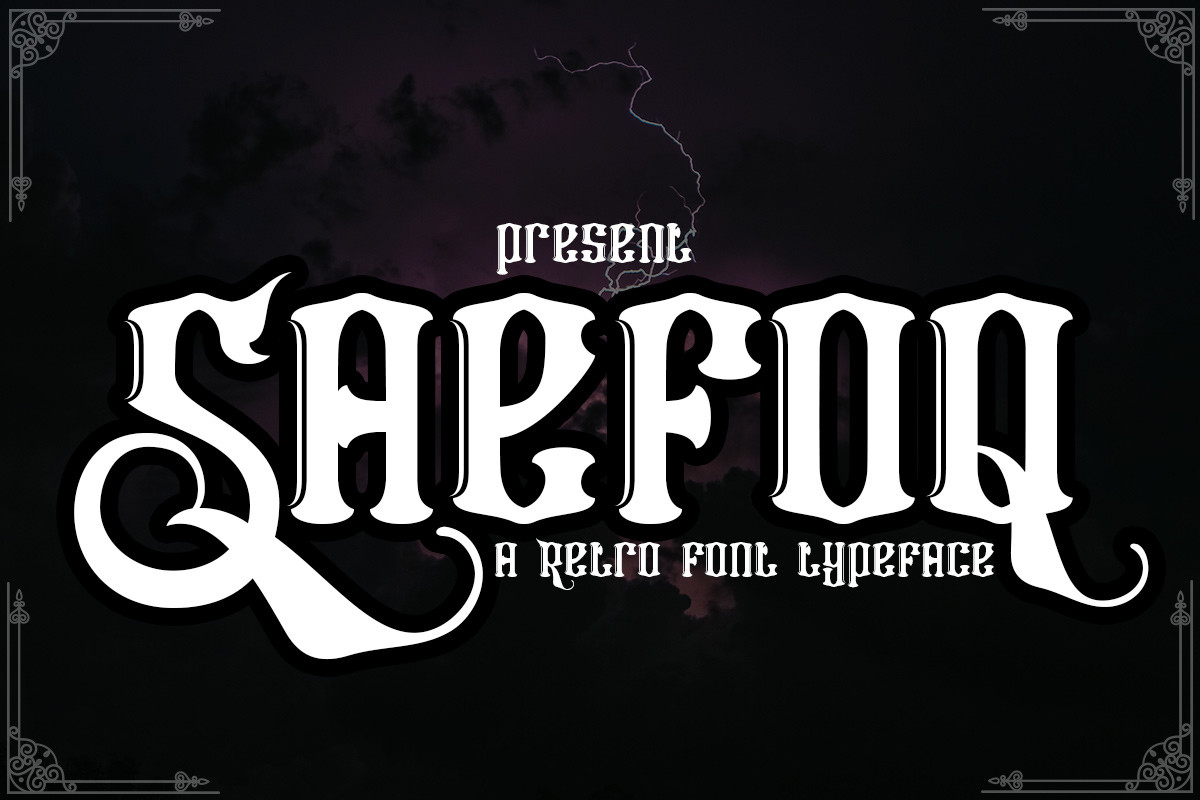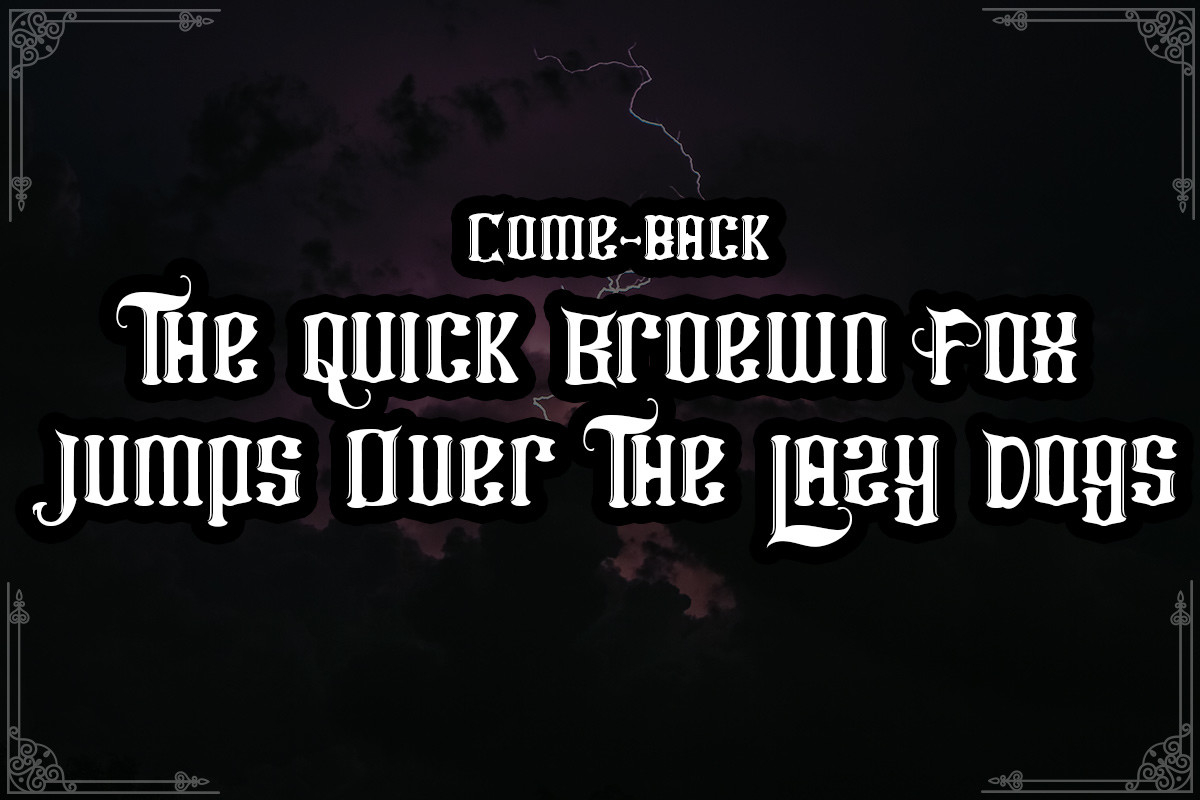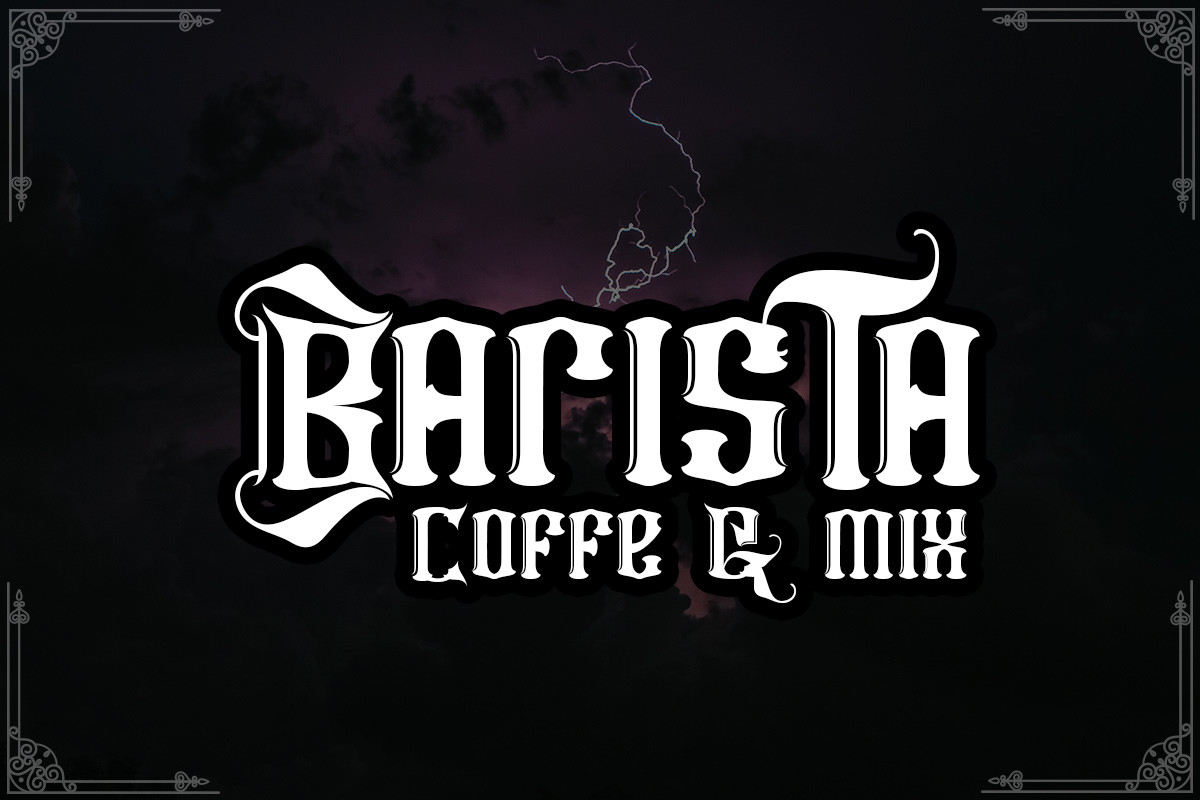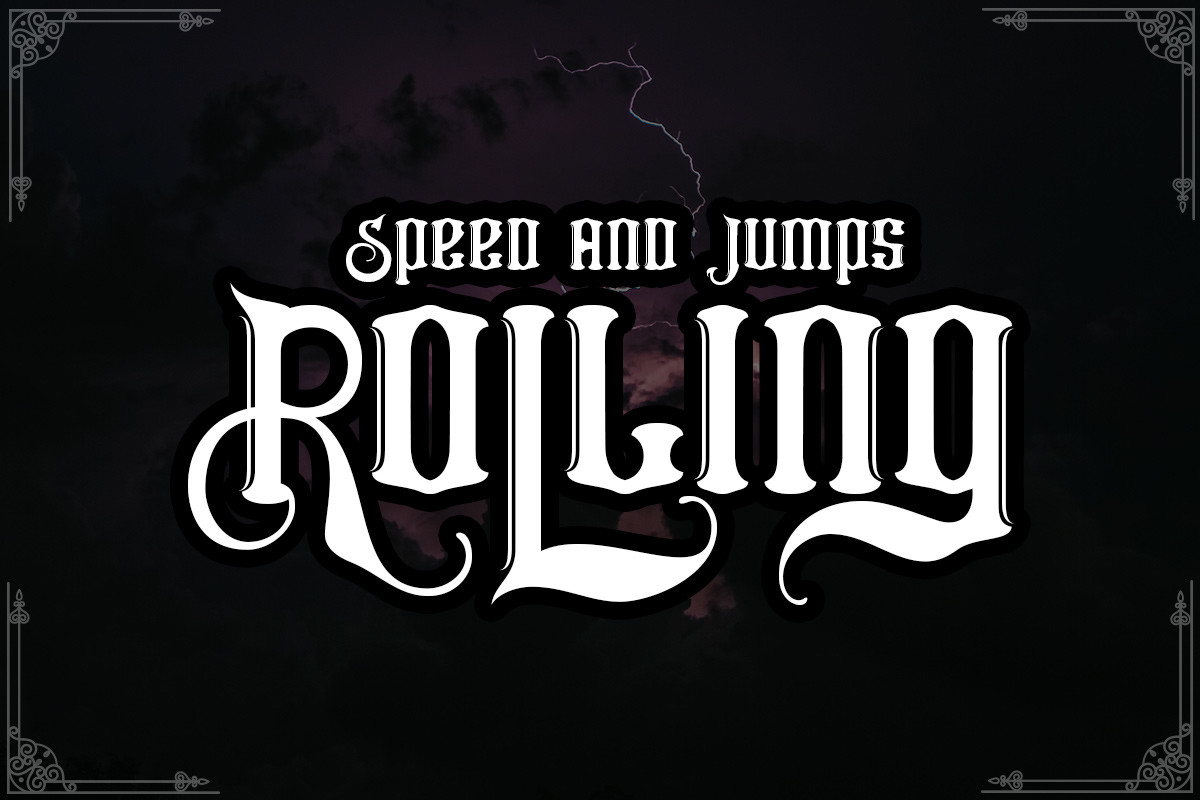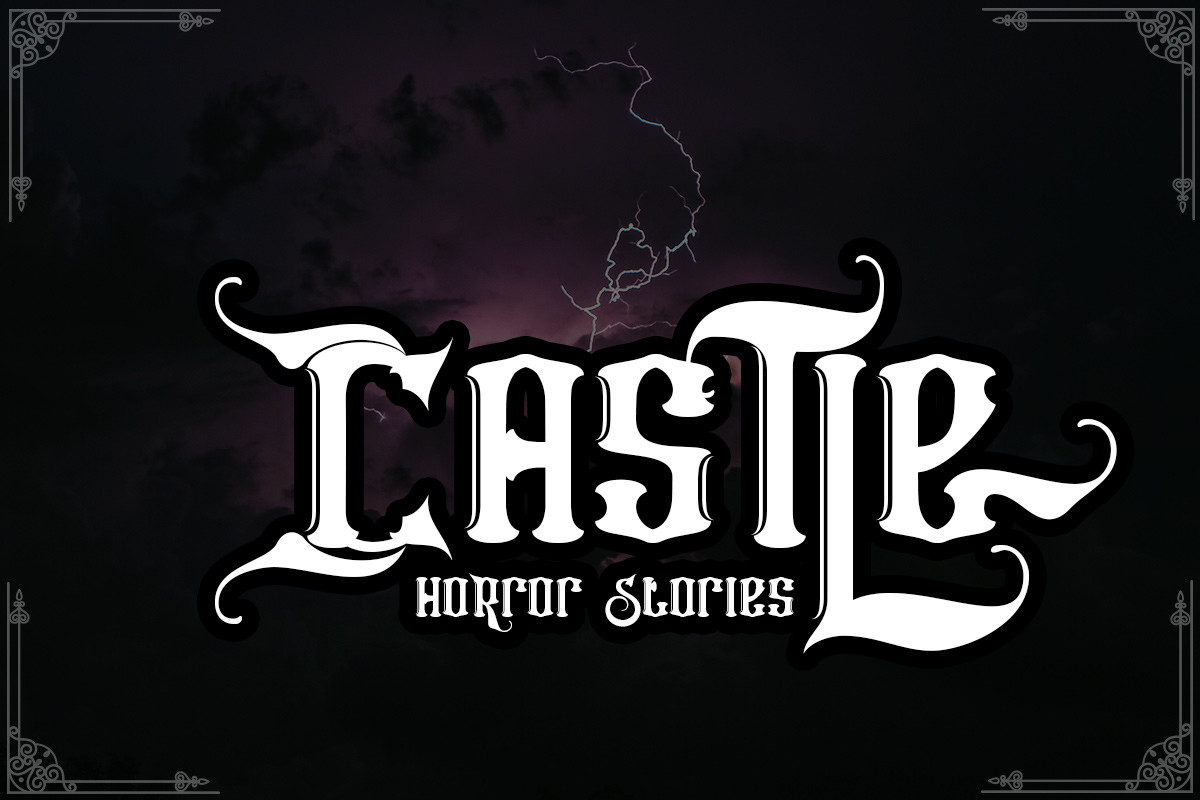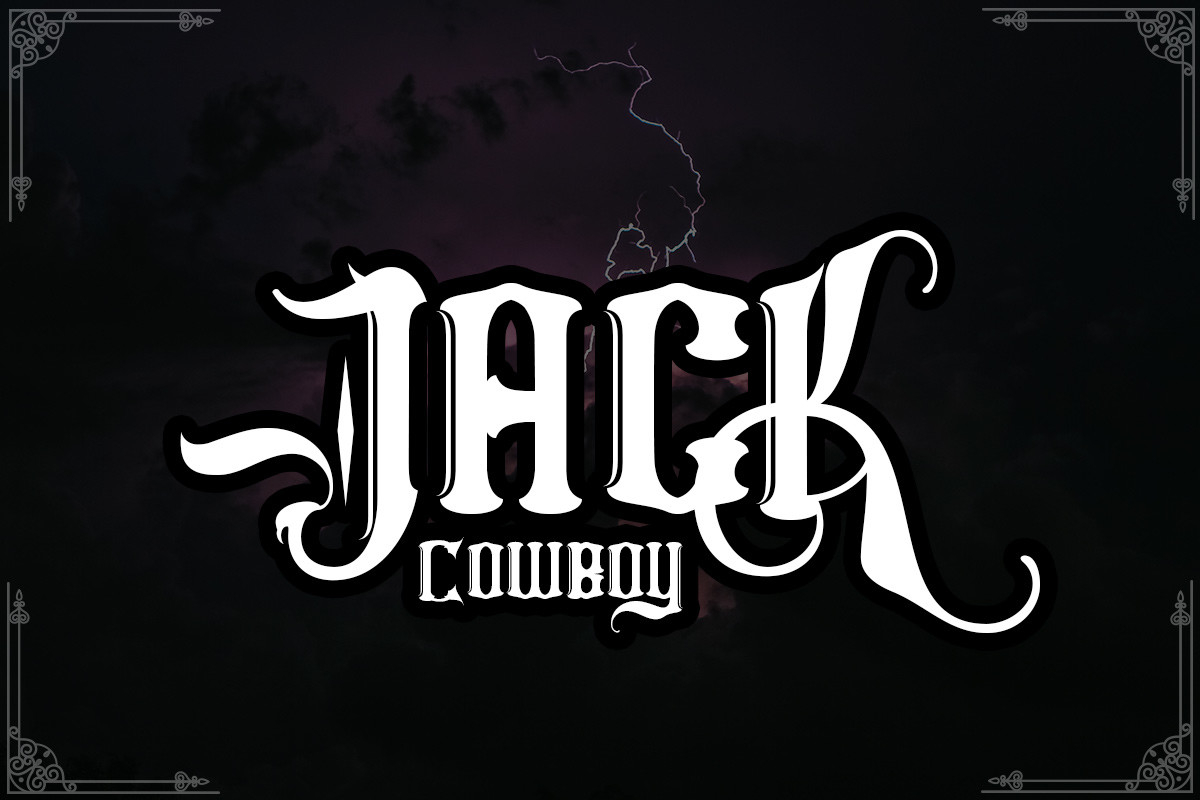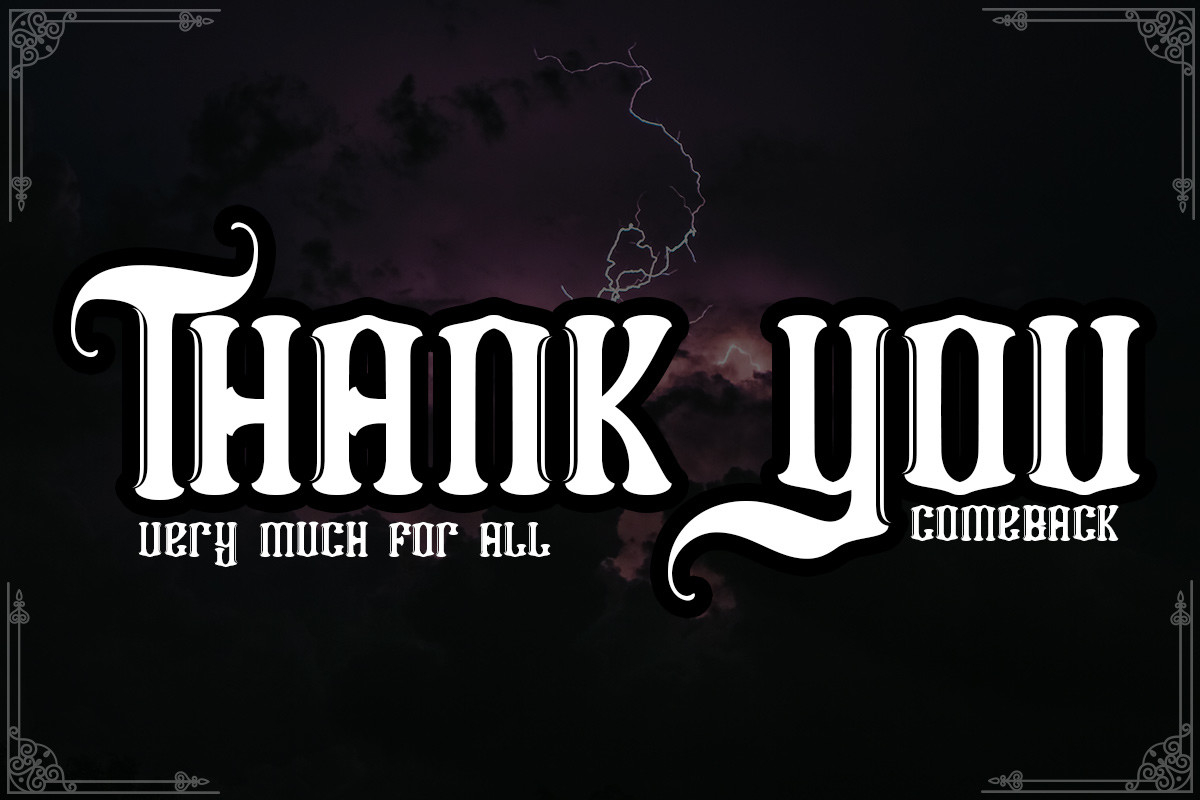
Saefoq Font
About Saefoq Font
Saefoq is a gothic styled and detailed blackletter font. It is PUA encoded which means you can access all of the glyphs and swashes with ease!